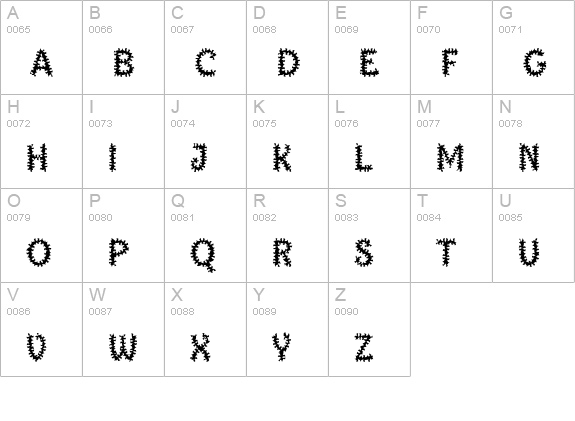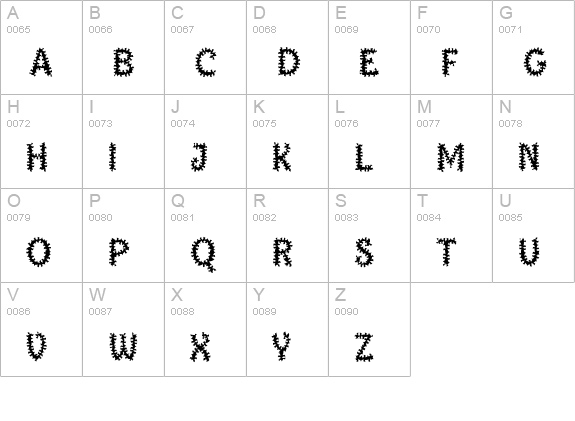
TiedUp Font Details
Introducing TiedUp font, a captivating and innovative typeface that effortlessly combines aesthetics with functionality. This remarkable font is the perfect solution for those seeking a unique and eye-catching design that will truly make a statement. With its intricately woven letters, TiedUp font adds a touch of elegance and sophistication to any project. The distinct character of TiedUp font lies in its beautifully crafted letterforms, which appear as if they have been delicately tied together with an invisible thread. This intricacy creates a visually stunning effect, captivating the reader's attention and leaving a memorable impression. Whether used for headlines, logos, or branding materials, TiedUp font is bound to stand out from the crowd. What sets TiedUp font apart is not only its exceptional design, but also its versatility and accessibility. This font is freely available to download at FontsMarket.com, making it easily accessible to designers, artists, and enthusiasts alike. The ability to freely utilize TiedUp font adds an additional layer of convenience and creativity to any project, allowing for boundless possibilities when it comes to expressing your unique vision. Whether you are creating a website, designing a poster, or adding a touch of elegance to your personal stationery, TiedUp font is the perfect choice. Its seamless blend of artistry and functionality ensures that your message will be conveyed with utmost clarity and style. So, why settle for ordinary when you can elevate your designs with TiedUp font? Embrace the captivating allure of TiedUp font and let it unlock your creative potential. Download this extraordinary typeface for free at FontsMarket.com and embark on a design journey that will leave a lasting impression. With TiedUp font, you have the power to transform your projects into visual masterpieces that truly stand out. Go ahead, download TiedUp font today and let your imagination run free.